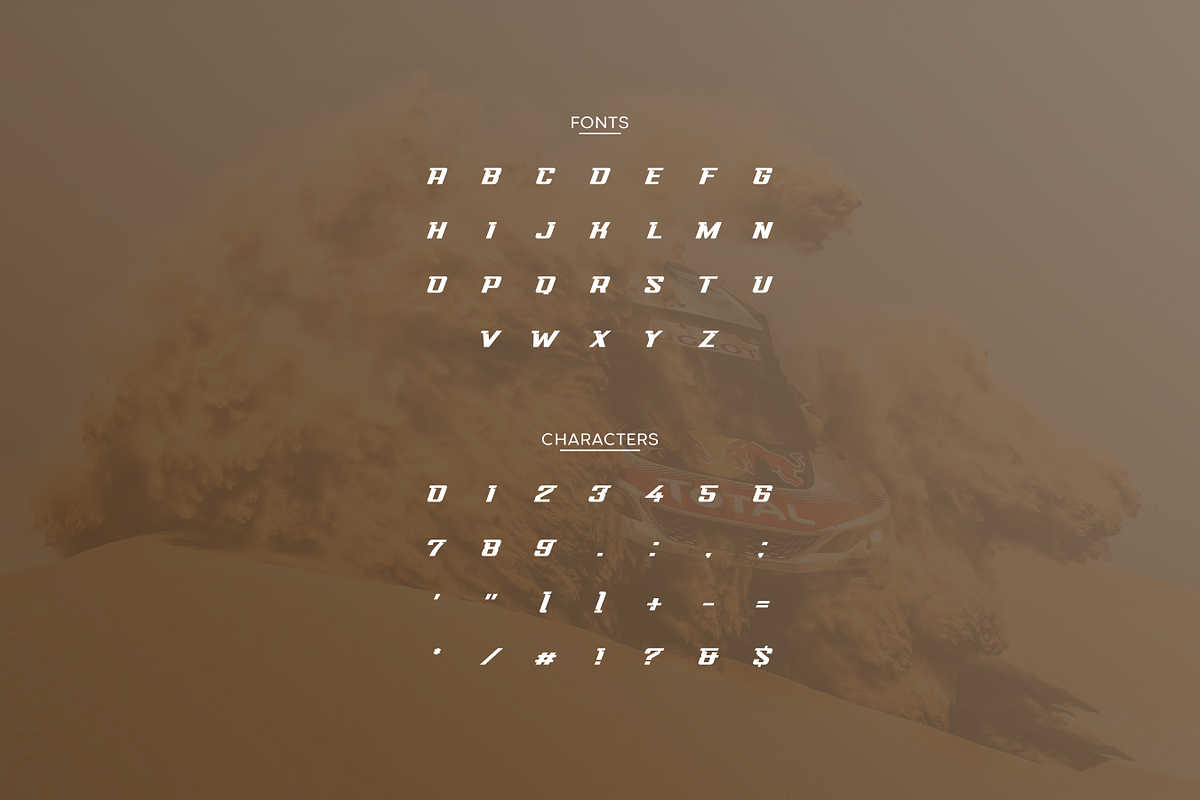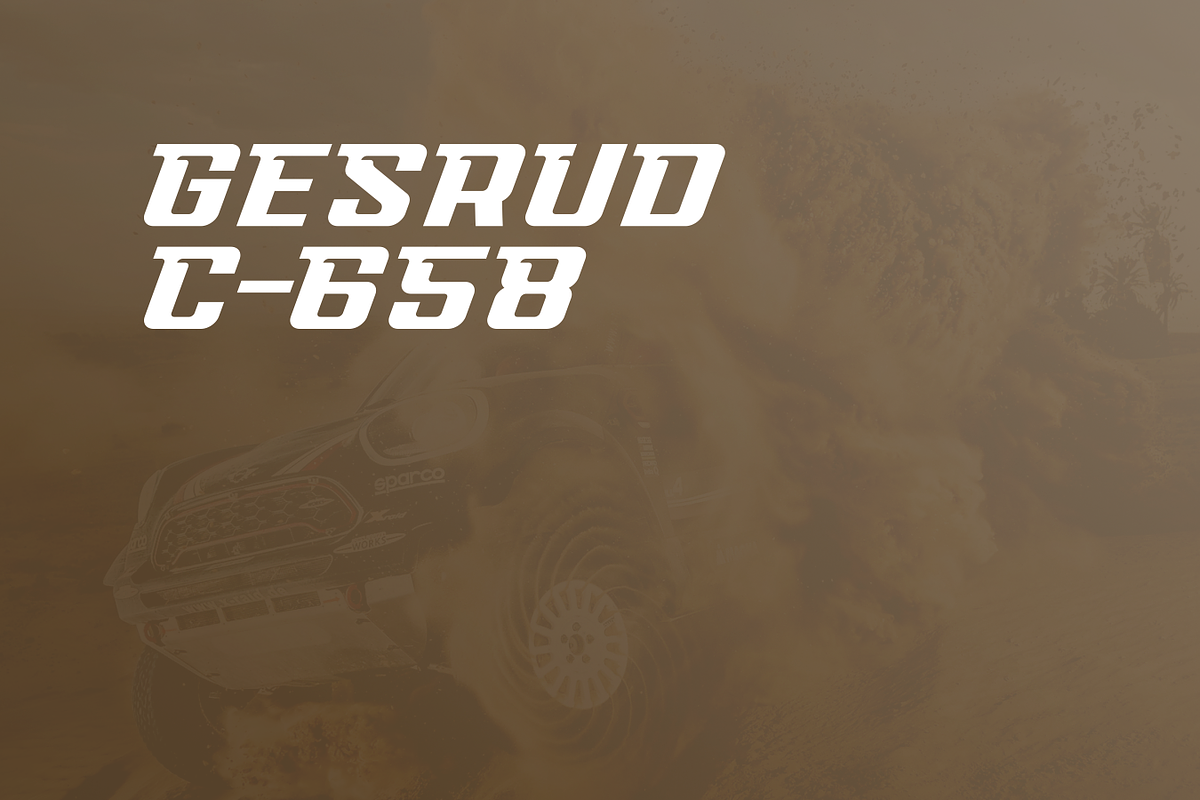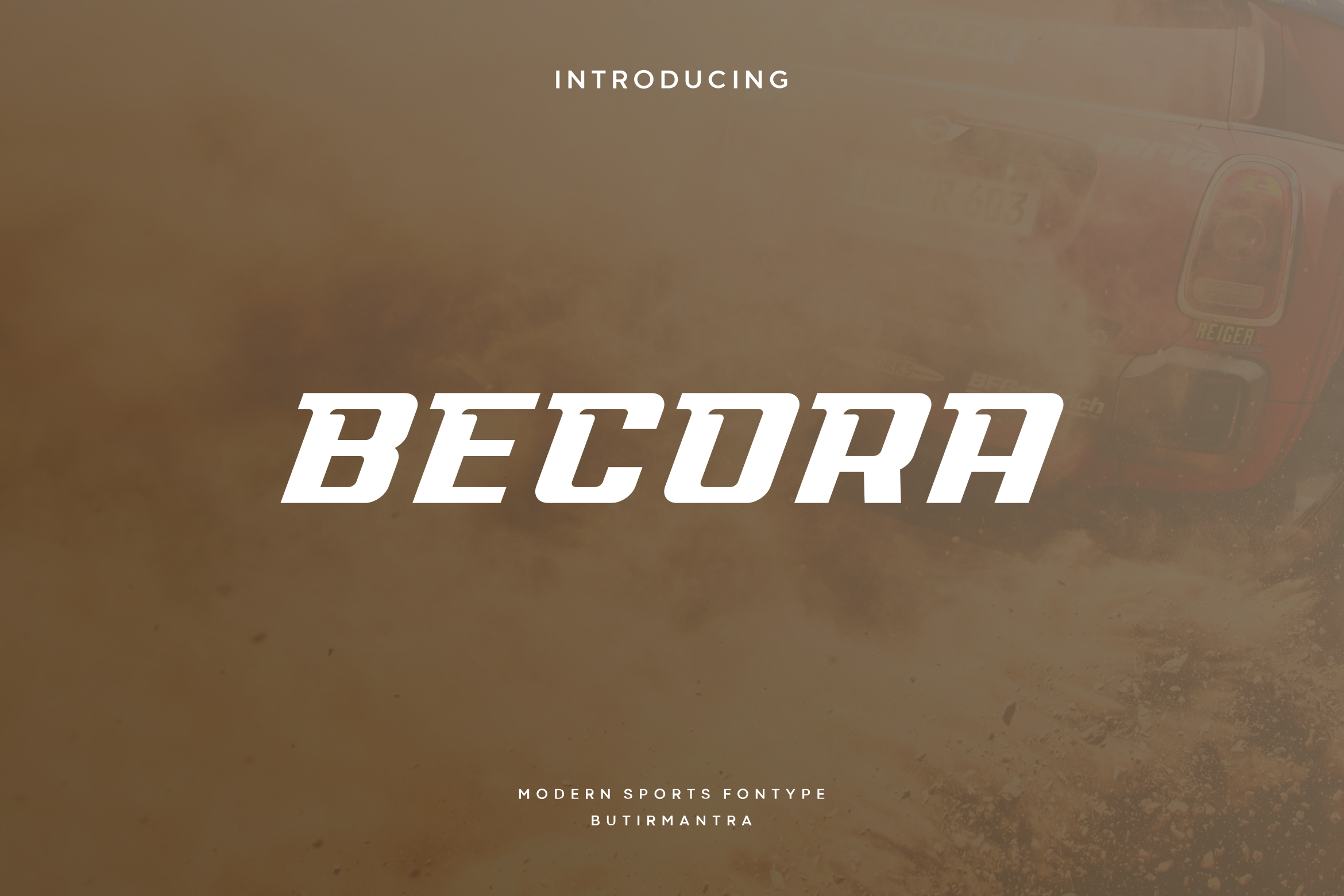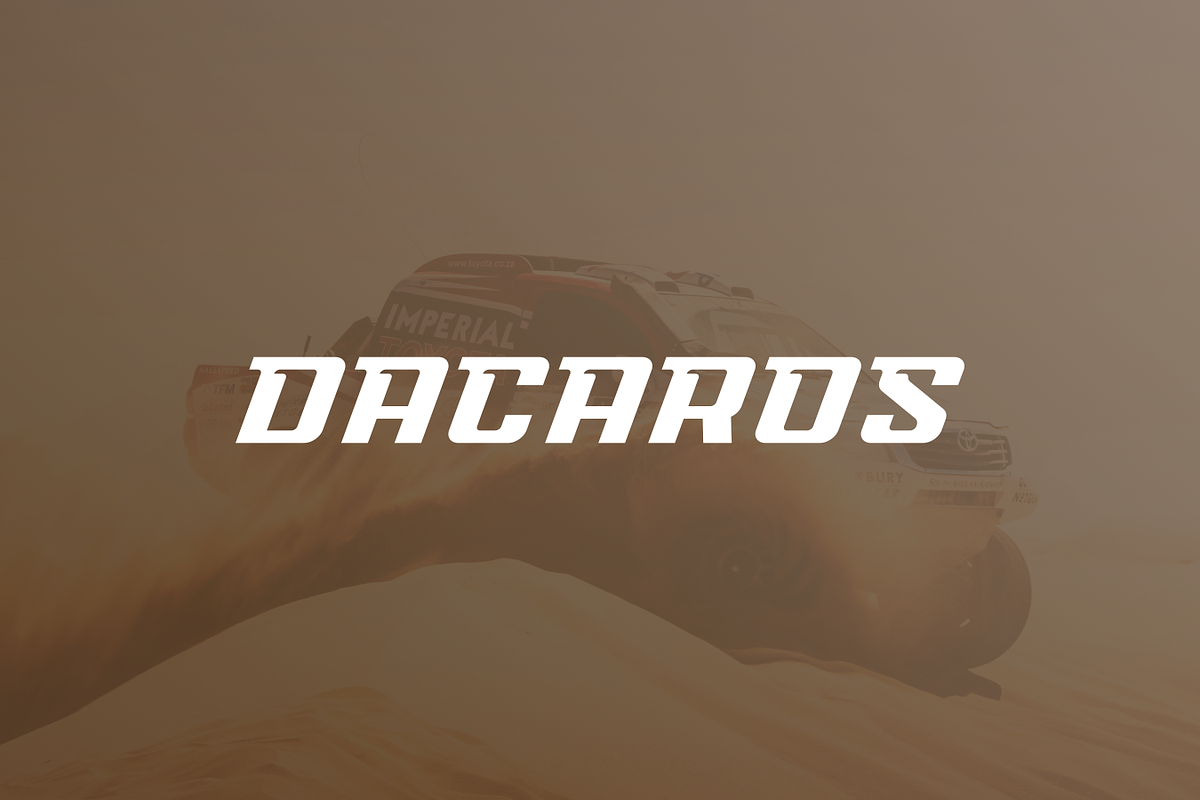
Becora - Modern Sport Typeface
Becora is a bold and slant lettered display font, with a fresh and new style. It works best on the sporting or racing designs that require a strong and speed touch. Becora have a distinct appeal that manages to effortlessly combine the formal look with a more playful one. It can either be simplistic or complex in appearance but one thing it does for sure this font will be flexible on various types of designs.
- Punctuation & Number